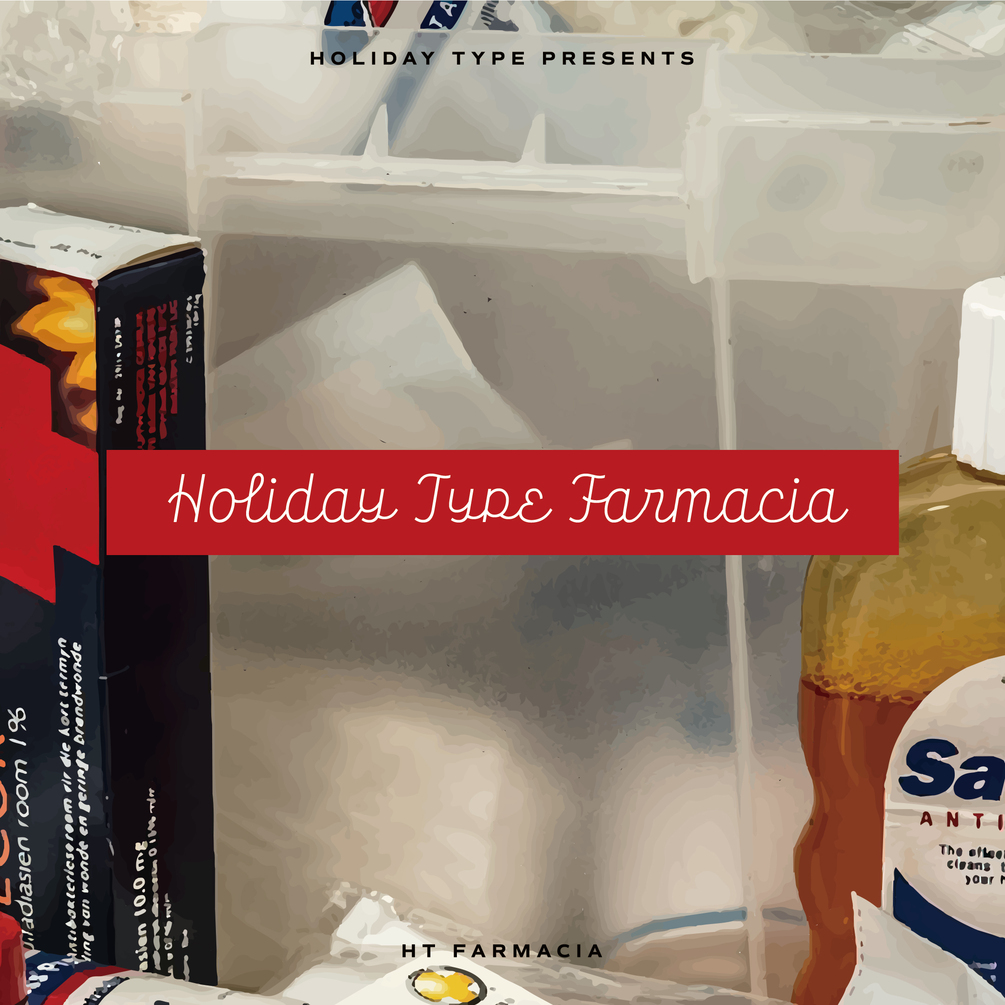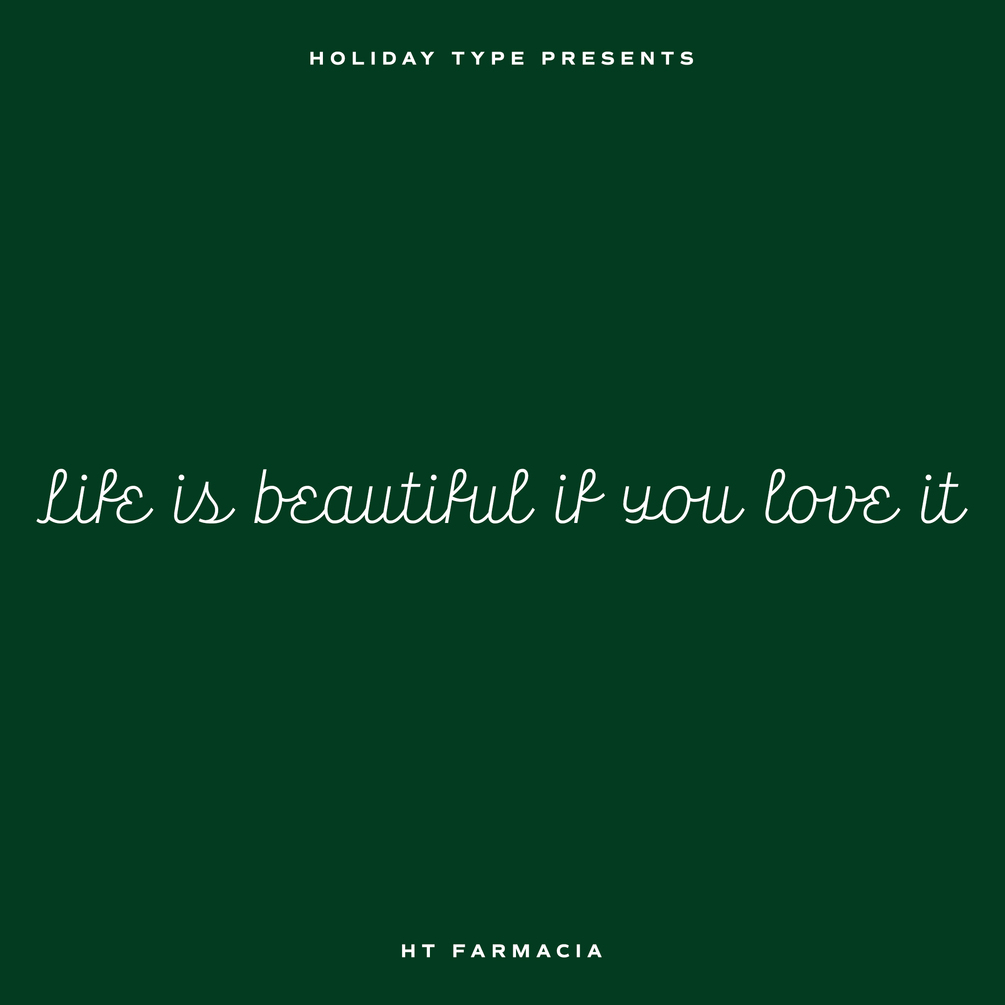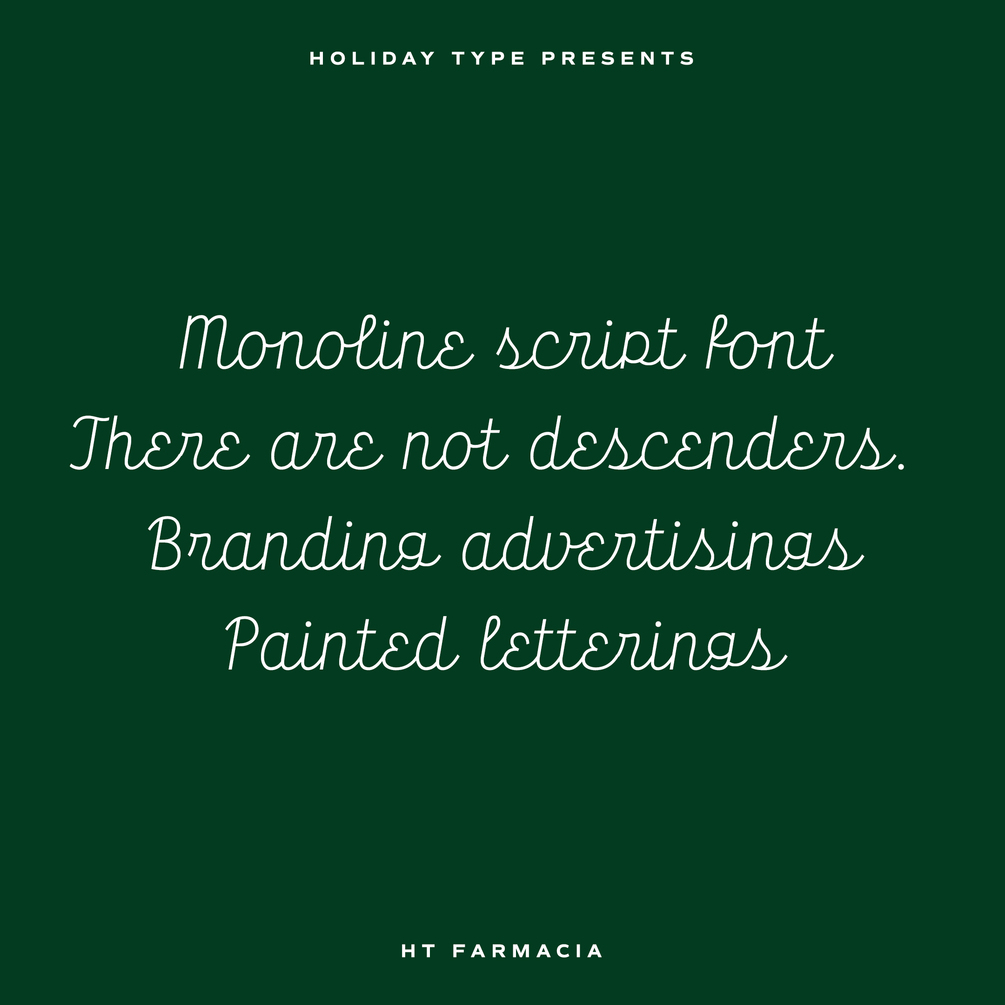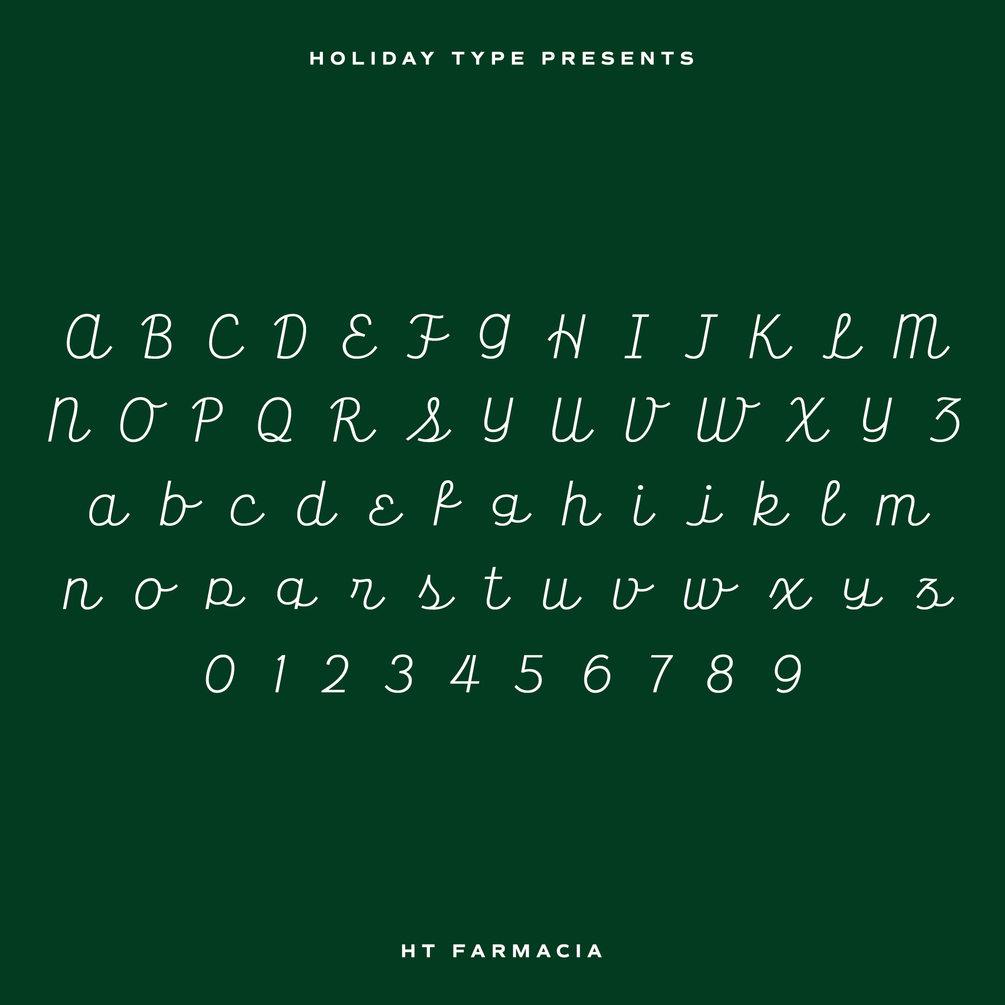
HT Farmacia
Retro script based on shopfront lettering, wallpaint advertisements in Italy around 1950s. This is a monoline script font. Its tail gives us cute and lovely impression, but it is also methodical and punctual.